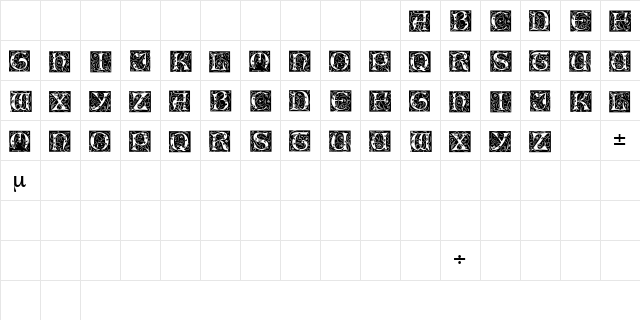
Complete IlluminatiOneDisplayCapsSSK Regular glyph index. Displaying only characters natively supported by IlluminatiOneDisplayCapsSSK Regular font.
IlluminatiOneDisplayCapsSSK is built around its visual character rather than neutral utility - its distinctive forms are designed to make an impression at display sizes.